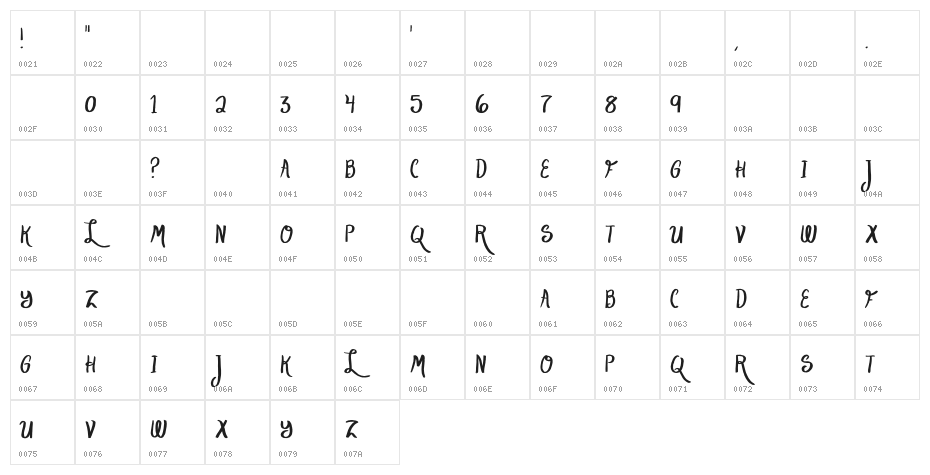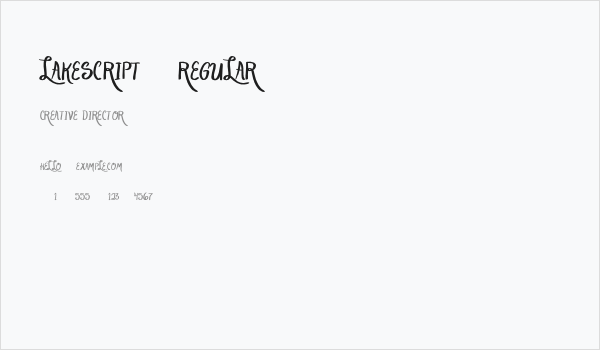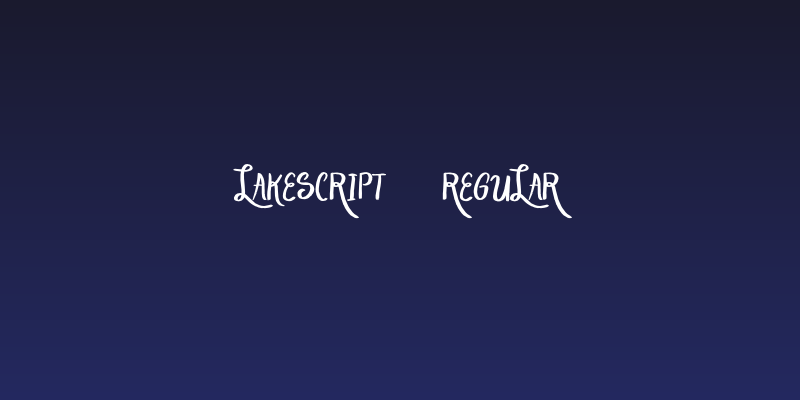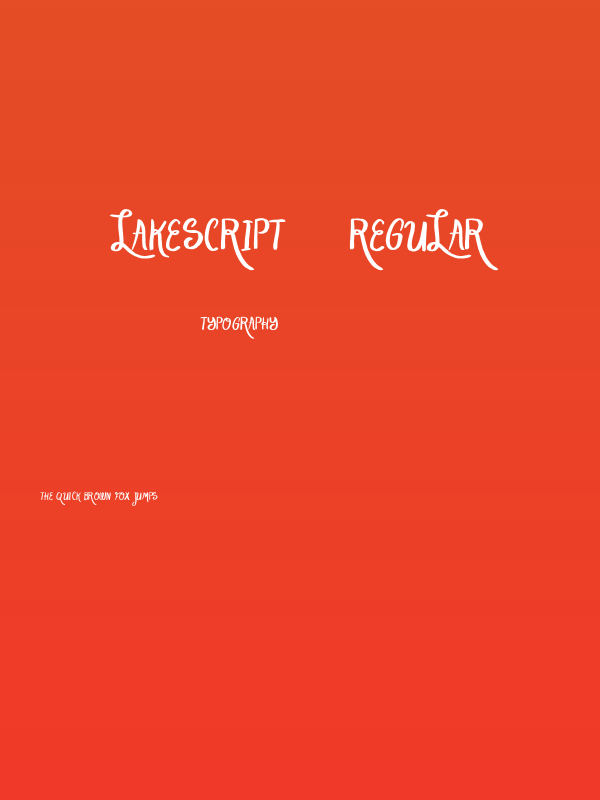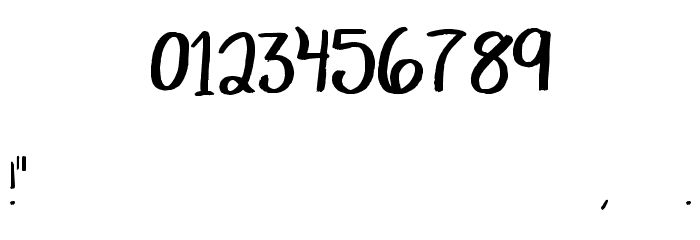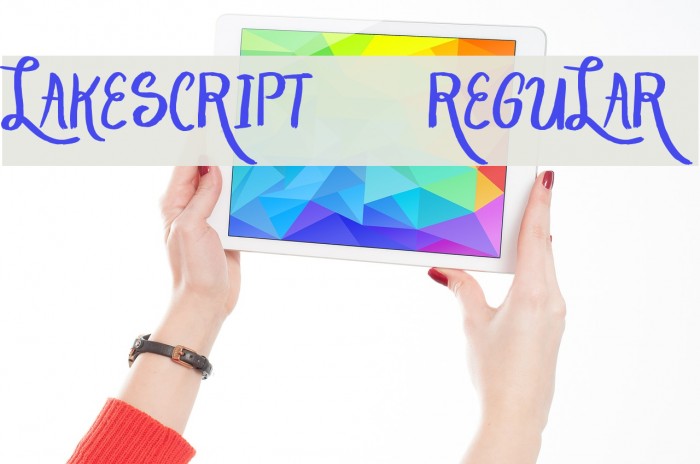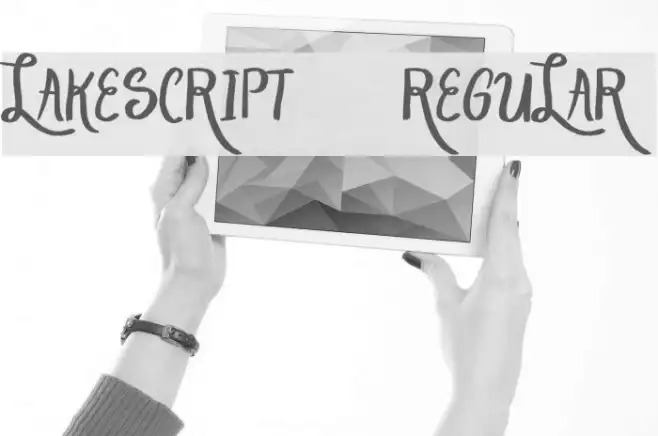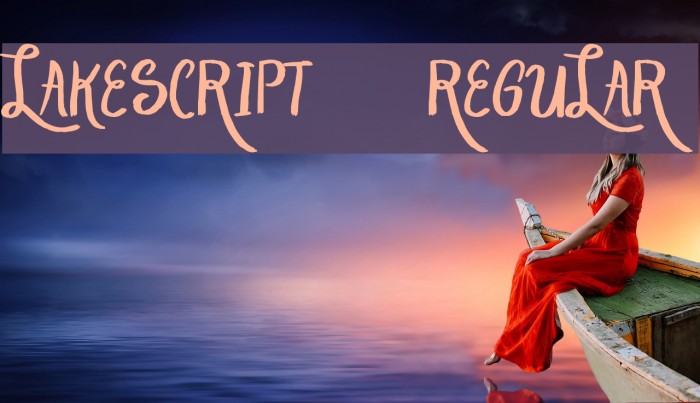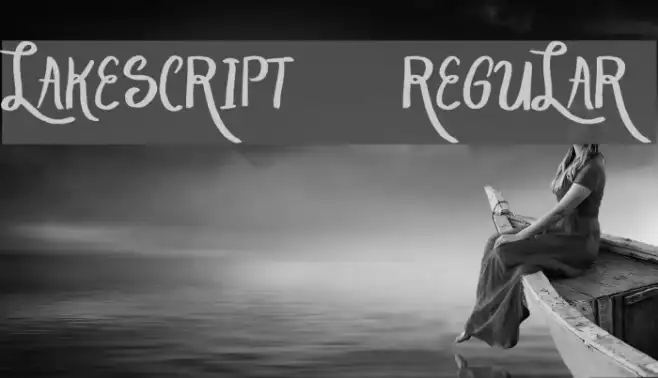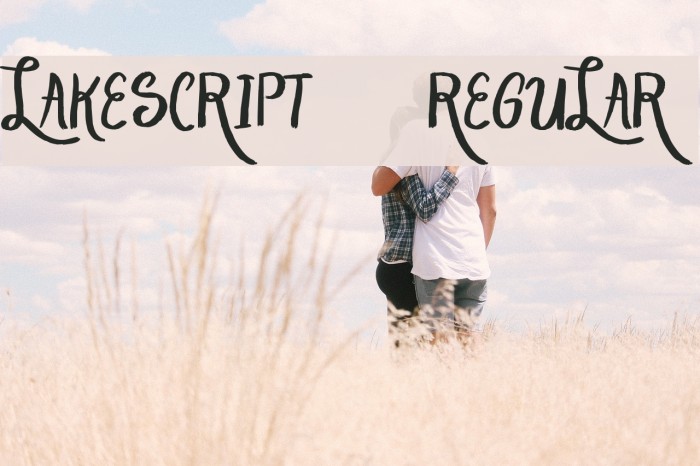
LakeScript-Regular Font
LakeScript-Regular Description
This font features a dynamic and flowing script style, characterized by its bold and expressive strokes. The letters are crafted with a sense of movement, giving it an energetic and lively appearance. The uppercase letters exhibit a unique blend of curves and sharp edges, while the lowercase letters maintain a consistent fluidity. The numerals are designed to match the overall aesthetic, ensuring a cohesive look. This font's distinctive style makes it suitable for creative and artistic projects, where a touch of elegance and flair is desired.
| Proposed Projects | Ideal for invitations, greeting cards, branding, and artistic designs. |